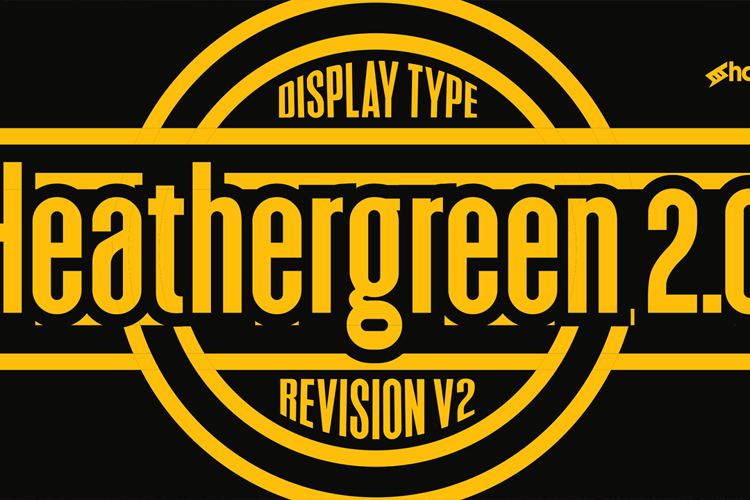
Heathergreen 2.0 Font
Designed by Dennis Ludlow
Heathergreen 2.0 is a tightly spaced display sans that returns for a facelift. A close relative of the Deutschlander family, the 2.0 update was designed to squeeze in text where space was limited. Many letters were completely redrawn and the overall height was reduced by about 20%. Spacing was completely redone for a smoother flow. Clean and semi-condensed, it offers a minimalistic look and high legibility. Use it for movie credits, a book title, or a poster.